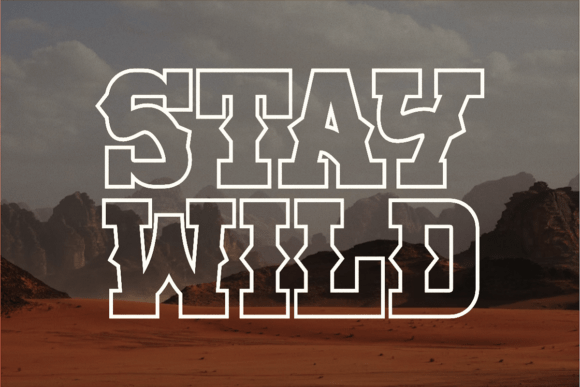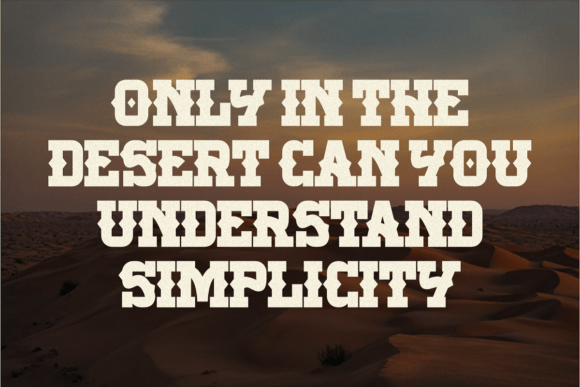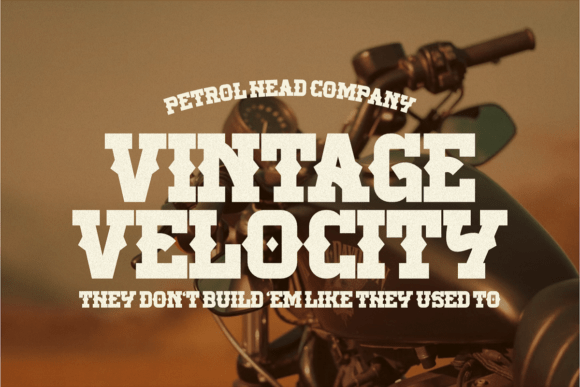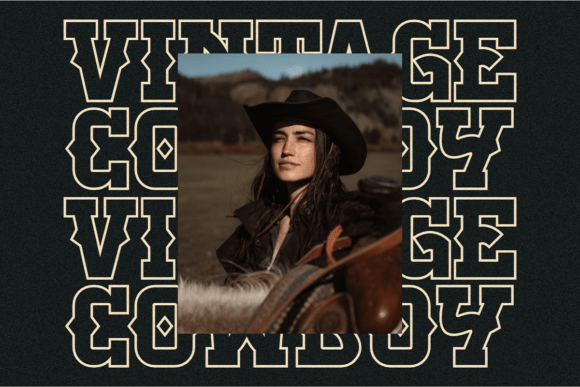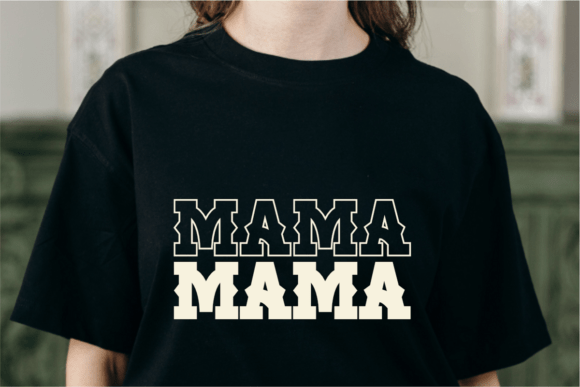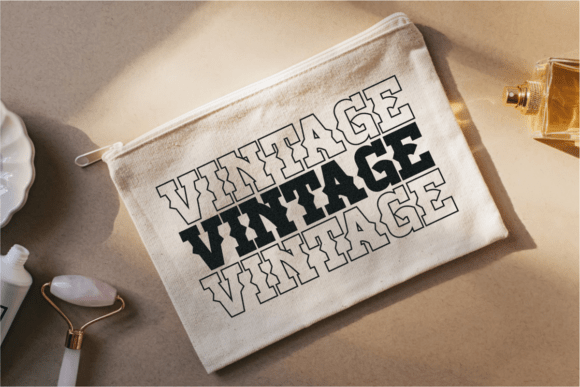
Introduction to Believe Western Font
As you sit at your desk, surrounded by design tools and screens, have you ever felt a sudden urge to unleash your inner cowboy or cowgirl? Perhaps it’s the idea of a wild rodeo, a dusty desert landscape, or a vintage band playing in a dimly lit saloon that sparks your creativity. Whatever the trigger, the Believe Western Font is here to help you bring that rugged, old-school Americana vibe to life.
With its bold, blocky serifs and commanding presence, the Believe Western Font is the perfect design resource for creatives who want to add some grit and character to their projects. Whether you’re working on a logo, poster, or branding project, this high-quality font is sure to deliver. And the best part? It’s available for free download, making it a valuable asset for designers of all levels.
From transparent backgrounds to high-quality vector graphics, the Believe Western Font is a versatile design tool that’s sure to inspire your next creative project.
Key Features of Believe Western Font
- Unique Western-style font design with a rustic and vintage feel, perfect for creative projects.
- High-quality font with clear and legible characters, ideal for use in print and digital applications.
Honest Review: Believe Western Font
One of the things that stands out about this font is its high quality. The design is sleek and sophisticated, making it perfect for a variety of projects. I particularly love the transparent background feature, which allows for seamless integration into my designs.
- ⚠️ Limited customization options, which may be a drawback for some designers
- ⚠️ Not suitable for all types of projects, particularly those requiring a bold or dramatic font
Overall, I’m impressed with the Believe Western Font. It’s a solid addition to any designer’s toolkit, and I’m happy to have it in my collection. With its high quality and transparent background feature, it’s a must-have for any creative project.
Using Believe Western Font in Popular Design Tools
In Canva, upload the Believe Western Font to your account and use it in your designs. This font pairs well with transparent backgrounds and adds a rustic touch to your graphics.
In Adobe Photoshop or Illustrator, import the Believe Western Font and use it in your designs. This font is ideal for creating high-quality graphics and logos.
In PowerPoint or Word, use the Believe Western Font to add a touch of elegance to your presentations or documents.
Tips for Getting the Most Out of Believe Western Font
Experiment with different font sizes and styles to create unique designs. Pair the Believe Western Font with other fonts for a cohesive look.
The Believe Western Font is perfect for:
- Wedding invitations and decor
- Western-themed party invitations
- Outdoor and nature-inspired graphics
Alternatives to Believe Western Font
Great Vibes is a high-quality, handwritten font perfect for creative projects that require a personal touch. It’s ideal for designing flyers, posters, and other marketing materials with a transparent background to showcase your brand’s personality.
Compared to Believe Western Font, Great Vibes has a more elegant and refined feel, making it suitable for upscale designs. However, Believe Western Font has a stronger, more rustic charm that works well for country-themed projects.
Alex Brush is a sophisticated, calligraphic font that’s ideal for design projects requiring elegance and refinement. It’s perfect for creating high-end branding materials, such as business cards, letterheads, and website headers.
Alex Brush has a more refined and polished look compared to Believe Western Font, which has a more rugged and hand-drawn feel. Believe Western Font is better suited for creative projects that require a more casual, approachable tone.